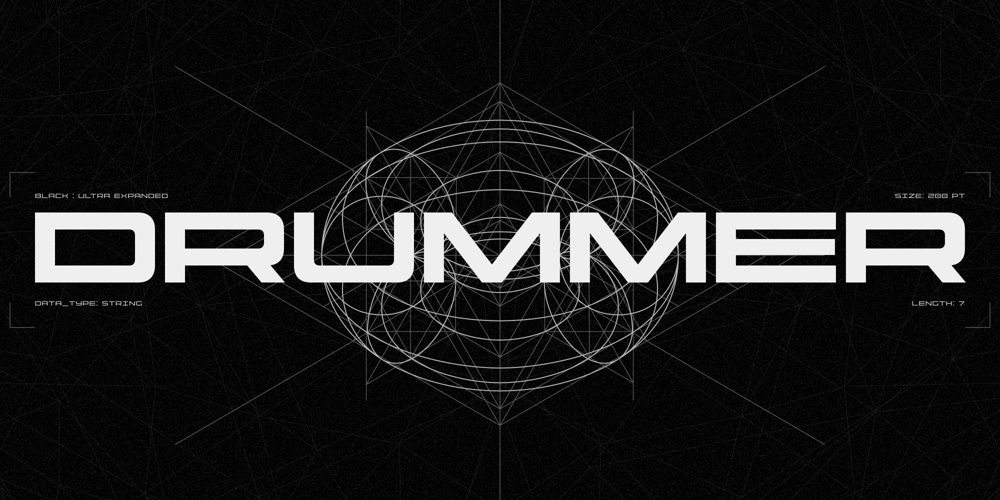
Drummer Font Family was designed by Eugene Bunin and published by Harvester Type. Drummer contains 55 styles and family package options. Drummer is a large futuristic font family inspired by the Expansion TV series, old science fiction book covers and Honda Prelude and Porsche logos.The family contains a large number of styles and a lot of language support. 54 styles, 6 in width (Ultra Condensed, Normal, Expanded, Extra Expanded, Ultra Expanded) and 9 in weight (Thin, Extra Light, Light, Regular, Medium, Semi Bold, Bold, ExtraBold, Black). The font also has a variable version. 573 glyphs, including 40 alternate characters.A lot of work has been done on the font. The fillets on the symbols have been well worked out and tested for a better visual and practical experience. The font combines the monospacing of many characters combined with kerning, which makes it very convenient for many purposes, such as vertical typography.The font is good in all sizes, both small and large, which makes it possible to use it anywhere. Branding, logos, titles, posters, texts, covers, merch, prints, web, titles, banners, games and design in games and much more.In the near future, it is planned to add another axis of variability – the slant. Consequently, the family itself will increase. It is also planned to add a small case (capital).If you want to say something about the font or get a font in other formats, then write to the mail: bunineugene@gmail.com .